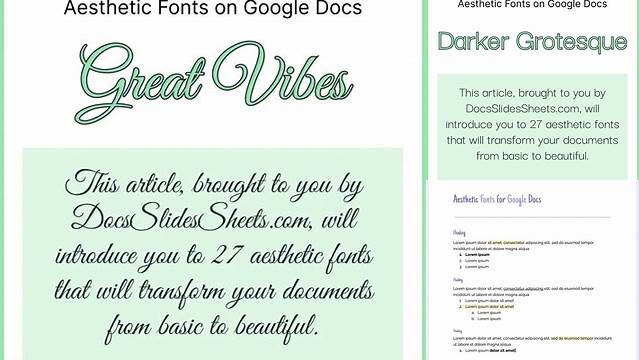
Google Docs Aesthetic: Pretty Fonts Guide
Hey guys! Ever feel like your Google Docs are a little…blah? You're not alone! We've all been there, staring at that same default font, dreaming of something more. Well, good news! You can totally jazz up your Google Docs and create a seriously cool aesthetic with some pretty fonts. This guide is your one-stop shop for all things Google Docs fonts, covering everything from finding awesome fonts to making your documents pop. Let's dive in and transform those plain pages into something visually stunning! It’s all about creating that perfect Google Docs aesthetic, and trust me, a good font can make all the difference. Let’s get started on your font journey to enhance the visual appeal of your documents. We'll unlock the secrets to making your Google Docs not just functional, but beautiful.
Choosing the Perfect Fonts for Your Google Docs Aesthetic
Alright, let's talk about picking the perfect fonts. This is where the real fun begins! Think of your font choice as the outfit for your document. It sets the tone and helps communicate your message. Before you even think about fonts, consider your document's purpose. Are you writing a formal report, a casual blog post, or a creative writing piece? Each calls for a different font style. For example, a business proposal might benefit from a clean, professional font like Roboto or Lato. These fonts are easy to read and project an image of trustworthiness. On the flip side, a creative project, like a scrapbook or a personal blog, might look amazing with a more playful font, like Pacifico or Lobster. These fonts add personality and flair. Think about your audience. Who will be reading your document? What kind of impression do you want to make? Are you targeting a specific age group or demographic? This will also help you decide on a suitable font. Consider the readability of the font. No matter how pretty a font is, it's useless if no one can read it. Fonts should be readable in all sizes and on different devices. Experiment with a few different fonts to see how they look in your document. It's always a good idea to test different sizes to see what looks best. Don't forget about pairing fonts! You can create visual interest and a better aesthetic by using different fonts. You can mix a serif font (like Times New Roman) with a sans-serif font (Arial) to create contrast. Use one font for your headings and another for the body text. Make sure the fonts complement each other, rather than clashing. Also, be mindful of the hierarchy. Use bolder or larger fonts for headings to make them stand out. Use a smaller font size for the body text. This will guide the reader’s eye through your document. Finally, keep it simple. While it can be fun to try out many fonts, using too many can make your document look cluttered and confusing. Stick to a maximum of two or three fonts.
The Significance of Font Pairing for Aesthetics
Font pairing is a subtle art, but mastering it can elevate your Google Docs aesthetic from basic to brilliant. This involves selecting two or three fonts that work harmoniously together, creating visual interest without overwhelming the reader. Think of it like choosing an outfit: the shirt (body font) needs to complement the pants (heading font). The goal is balance. Begin by understanding the basic font categories: serif (with little feet), sans-serif (without feet), monospace (fixed width), and display fonts (decorative). Generally, it's best to mix and match – pair a serif font with a sans-serif font. This creates contrast and makes the document more visually appealing. For example, you could use Playfair Display (serif) for your headings and Open Sans (sans-serif) for your body text. This combination provides a classic yet modern look. Experiment with different font combinations to see what suits your document best. Try using a bolder font for headings and a lighter one for body text to emphasize your document’s structure. Websites such as Canva and FontPair provide a ton of pre-made font combinations, which can spark inspiration and save you time. Beyond choosing two fonts, consider font weights (bold, regular, light, etc.) and sizes. A well-chosen font pairing highlights the important parts of your text, which makes it easier to read and appreciate. The key is to create visual hierarchy, guiding the reader’s eye and enhancing comprehension. The right font pairing subtly boosts the readability of your content, making it a joy to read.
Customizing Your Google Docs Aesthetic with Colors and Spacing
Besides choosing the right fonts, colors and spacing play a huge role in creating a stunning Google Docs aesthetic. These elements work together to create a visually appealing and easy-to-read document. Start with the background color. While a white background is standard, you can customize it to create a unique look. For a more calming effect, try a soft, light color. To change the background color, go to “File” > “Page setup” and choose a color under the “Page color” option. Be sure to choose a background that doesn't make the text difficult to read. Next up: text color. This is a great way to add personality and interest. Stick with a simple palette and consider using brand colors. Select the text you want to change and choose a color from the text color option in the toolbar. Just make sure there’s enough contrast between your text and your background. Now, let’s talk about spacing. Proper spacing is crucial for readability. Use line spacing to make your text easier to read. The default is usually 1.15. Increasing this slightly (e.g., to 1.5) can make a big difference. Use paragraph spacing to add space between paragraphs. This will help break up your text and improve readability. To adjust spacing, select your text and go to the “Format” menu. Then, select “Line spacing” and choose your desired settings. Don’t forget about margins! Wider margins can create a more elegant and less cluttered look. You can change your margins in the “Page setup” options. Finally, play with images and other visual elements, such as shapes, borders, and lines, to break up your document and add more visual interest. Use them sparingly so they don't distract from the content.
The Art of Using White Space in Your Google Docs Aesthetic
White space (or negative space) is a crucial element that significantly affects your Google Docs aesthetic, often overlooked, yet tremendously impactful. It refers to the empty areas around your text, images, and other elements on a page. Mastering white space helps in creating a cleaner, more organized, and visually appealing document. White space improves readability. A well-designed document with ample white space is easier on the eyes, allowing readers to process information more efficiently. It helps guide the reader’s eye through the document. Adequate white space separates different elements, making it easier to distinguish between headings, paragraphs, and other visual components. Without enough white space, a document can feel crowded and overwhelming. Use white space around headings to make them stand out. Increase the space before and after headings to create visual hierarchy. Apply white space between paragraphs. Adding a small space between paragraphs can significantly enhance readability. Consider using a line spacing of 1.5 or more. Margins are another form of white space. Wider margins provide a more elegant and less cluttered look. Utilize white space around images and graphics. It makes visual elements pop and prevents them from feeling crammed. Avoid using too much content on a single page. Break up long blocks of text with headings, subheadings, and other visual cues. When designing, try to ensure a consistent use of white space throughout your document. The uniform look of your document is essential for creating a professional and visually appealing aesthetic. Use the “Page setup” options to adjust margins and the “Format” menu to customize line and paragraph spacing. Review your document to make sure white space is used effectively.
Enhancing Your Google Docs Aesthetic with Visual Elements and Formatting Tricks
Let's explore some formatting tricks and visual elements that can dramatically improve your Google Docs aesthetic. First, embrace the power of headings. Headings are essential for organizing your document, guiding the reader's eye, and improving readability. Use heading styles (Heading 1, Heading 2, etc.) consistently to establish a clear hierarchy. This will also help you build a table of contents, making it easy for your readers to navigate. Then, use bullet points and numbered lists strategically. Lists break up large blocks of text and make it easier for your readers to digest information. Bullet points are great for listing items, while numbered lists are useful for steps or sequential instructions. Adding images and graphics can make your document more engaging and visually appealing. Google Docs allows you to insert images, charts, and drawings directly into your document. Make sure to choose high-quality images that are relevant to your content. Position the images carefully, and use the text wrapping options to control how text flows around the images. Using the text wrapping options, you can add a pop of color to your document. Add some color to your text, and experiment with different background colors. However, don't go overboard. Stick to a simple palette and make sure there’s enough contrast between your text and background. Use borders and lines to separate sections or highlight important information. You can add borders around text boxes, images, or entire sections of your document. Lines can be used to create visual breaks or emphasize specific elements. Finally, master the use of tables. Tables can be used to organize data and present information in a structured format. Use tables to make comparisons, display data, or create schedules. Use cell shading and borders to customize the look of your tables.
The Role of Images and Graphics in Aesthetic Design
Images and graphics are powerful tools for enhancing the aesthetic appeal of your Google Docs, adding visual interest and helping to convey your message more effectively. When integrating images, quality is paramount. Choose high-resolution images that are clear and visually appealing. Blurry or pixelated images detract from the overall aesthetic. Relevance is equally crucial. Ensure that your images are related to your content and enhance the reader’s understanding or engagement. Don't add images simply for the sake of it. Strategic placement is key. Consider the placement of images to create a visually balanced layout. Text wrapping options in Google Docs allow you to control how text flows around your images. Experiment with different wrapping styles to achieve the desired look. Use the “Wrap text,” “Break text,” and “In line with text” options to integrate images seamlessly. Incorporate charts and graphs to visualize data. Google Docs provides options for inserting charts and graphs. Make sure your charts are well-designed, clearly labeled, and easy to understand. Consider using icons and illustrations. Icons and illustrations can be used to add visual interest and break up large blocks of text. Be sure that the icons and illustrations match the overall style of your document. When you are using images, be mindful of the image's size. Resize images to fit your document's layout and ensure they are not too large or too small. Always add captions and alt text to images. Captions provide context, and alt text improves accessibility for those using screen readers. By strategically using images and graphics, you can turn a plain document into something visually appealing and engaging.
Conclusion: Mastering the Art of Pretty Fonts in Google Docs
Alright, folks, we've covered a ton of ground! From finding the perfect fonts to using them to create stunning visuals, you're now equipped with the knowledge to transform your Google Docs. Remember that the right fonts can make your documents look more professional, creative, and engaging. Now go out there and experiment! Play around with different fonts, colors, and layouts. The best way to master the art of pretty fonts is to practice and find what works best for you. Remember to consider your document's purpose, your audience, and the overall aesthetic you want to achieve. Use all the tips and tricks we talked about, and most importantly, have fun! Enjoy the process of creating beautiful documents that not only look great but also effectively communicate your message. Go forth and create! Let your creativity flow and make every Google Doc a work of art. Keep refining your skills, and your Google Docs will become a testament to your awesome taste and eye for design. Happy designing!